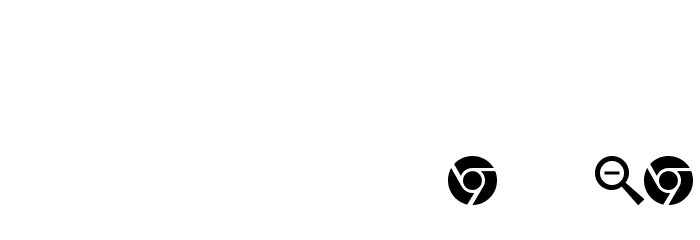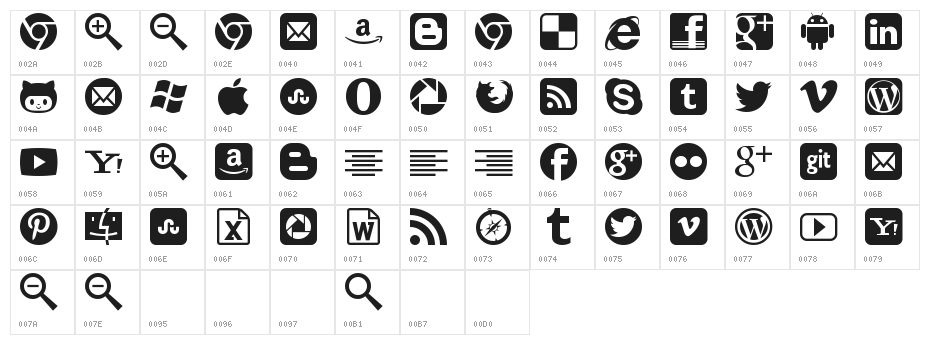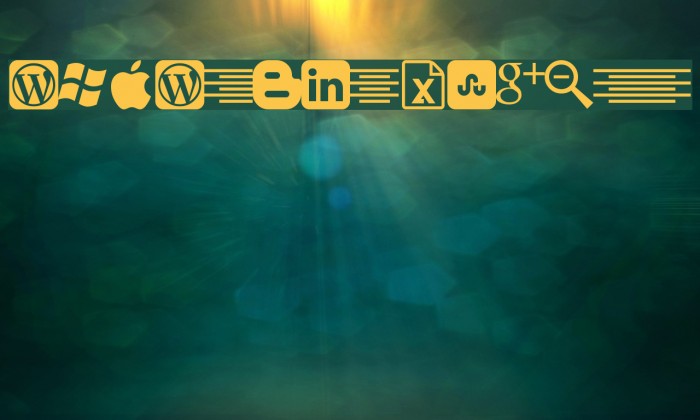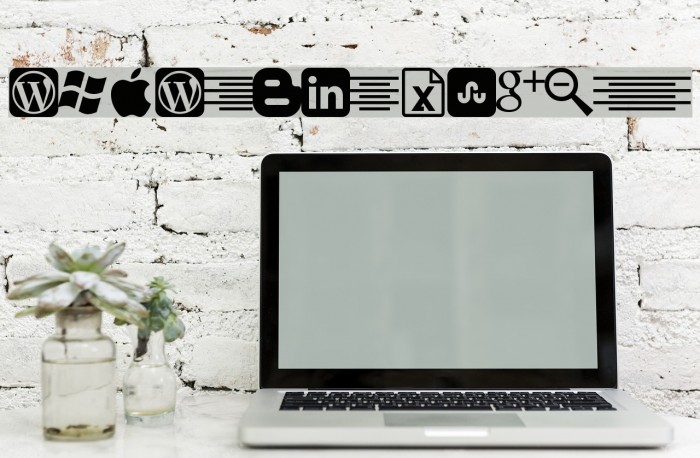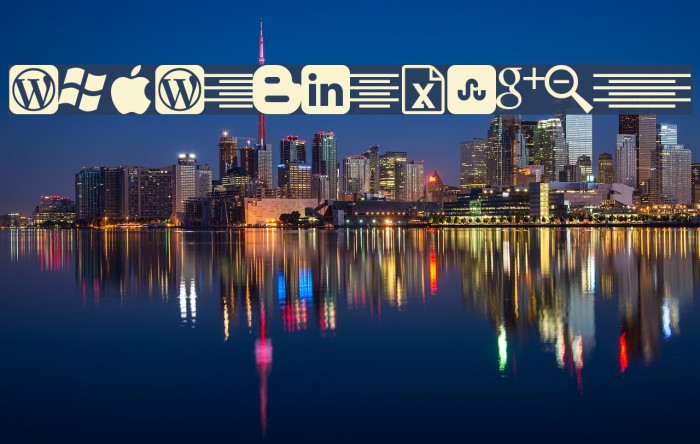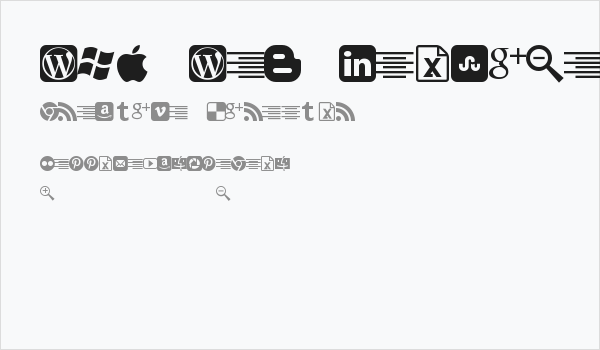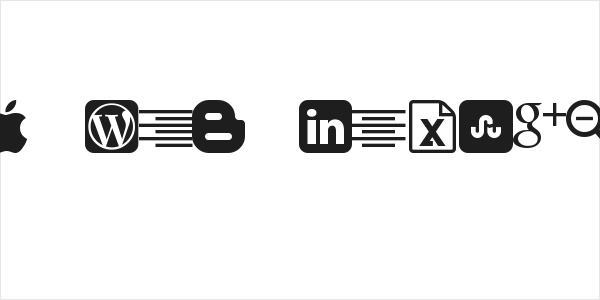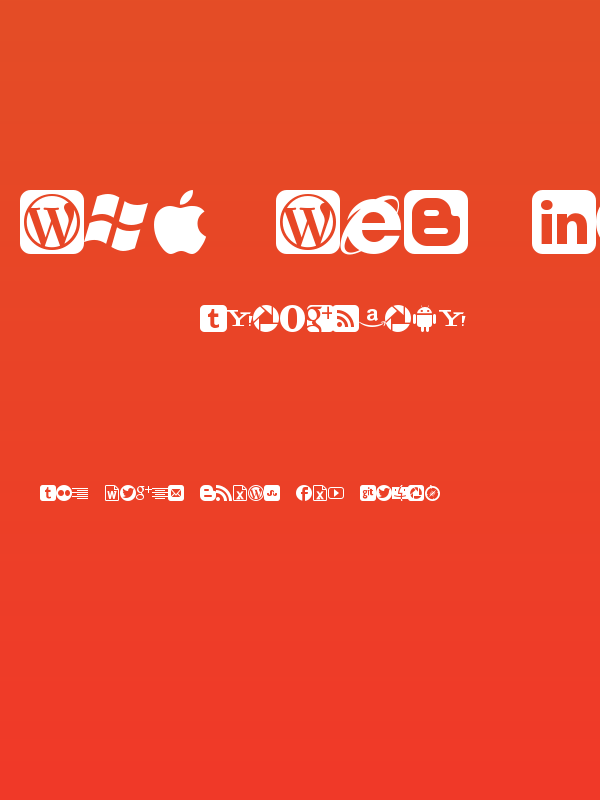
WLM Web Iconized Font
WLM Web Iconized Description
This set features a collection of web and social media icons, each enclosed within a square or circular shape, providing a uniform and cohesive look. The icons are bold and easily recognizable, making them ideal for digital interfaces. The design is modern and minimalistic, focusing on clarity and simplicity. Each icon is crafted to represent well-known platforms and services, ensuring they are instantly identifiable to users. The consistent use of solid black shapes ensures high visibility and contrast against various backgrounds.
| Use Case | Logos, Icons, Digital Interfaces |
| Proposed Projects | Ideal for use in website design, app interfaces, digital marketing materials, and social media graphics. |